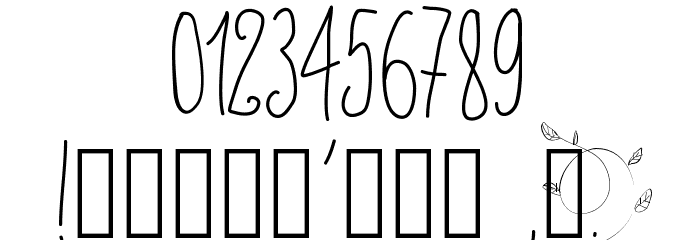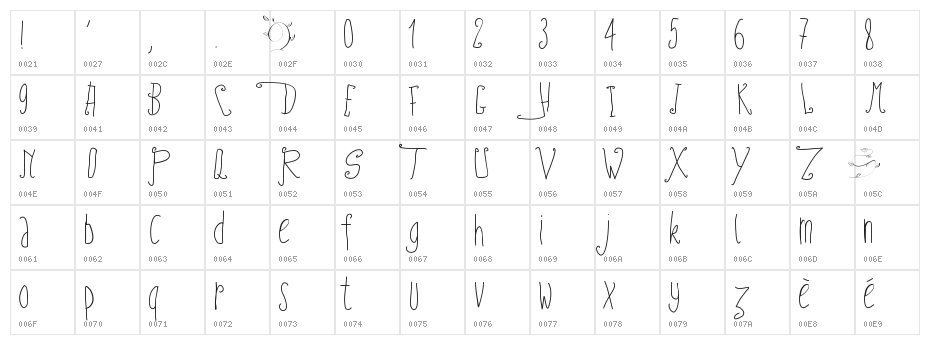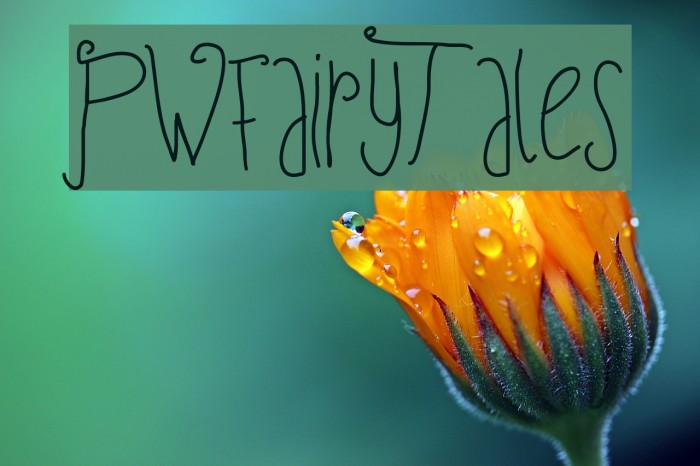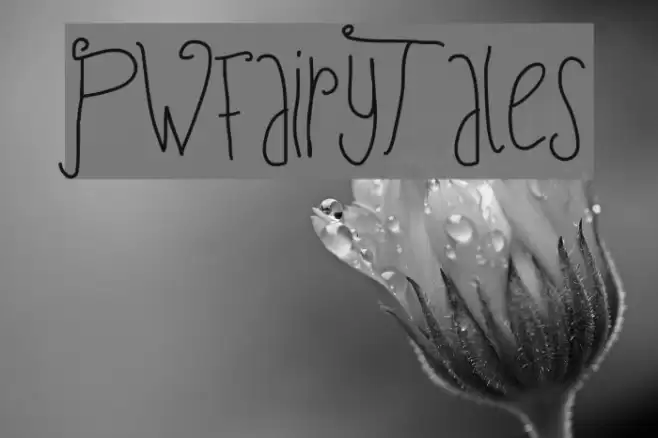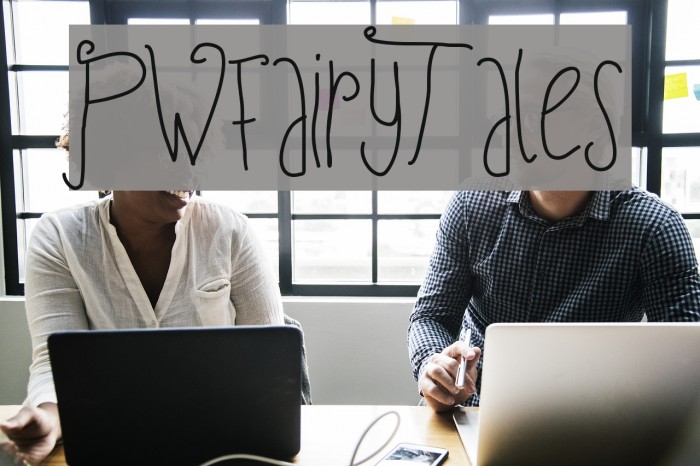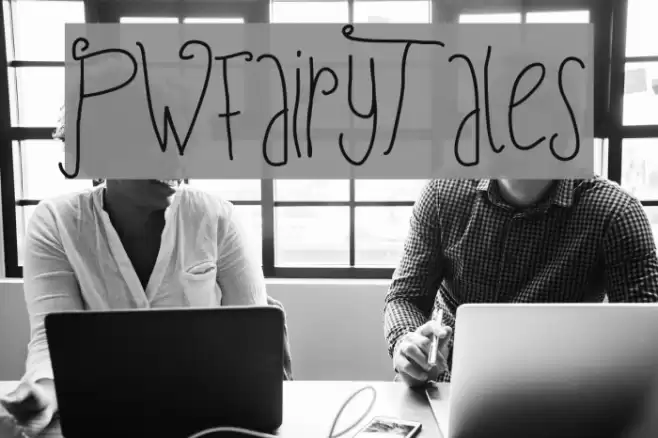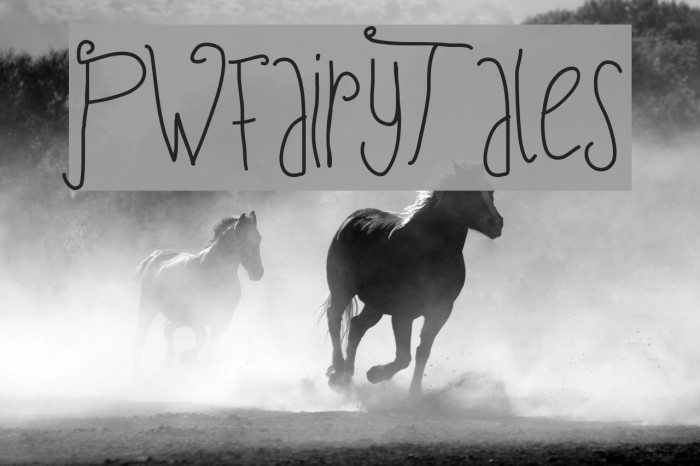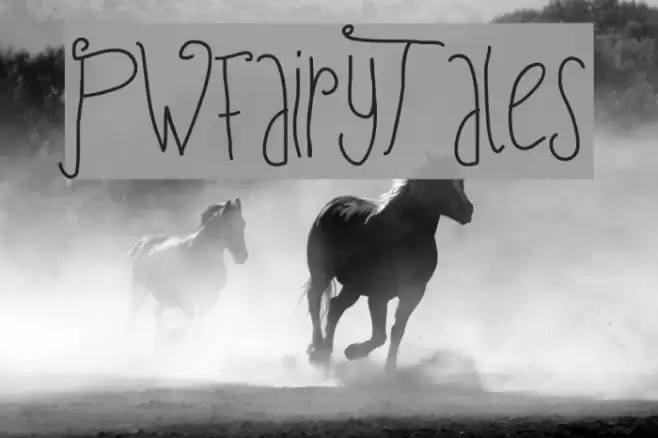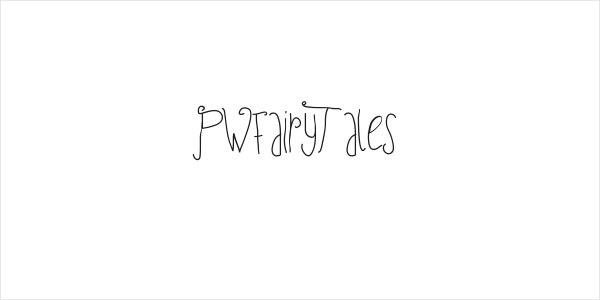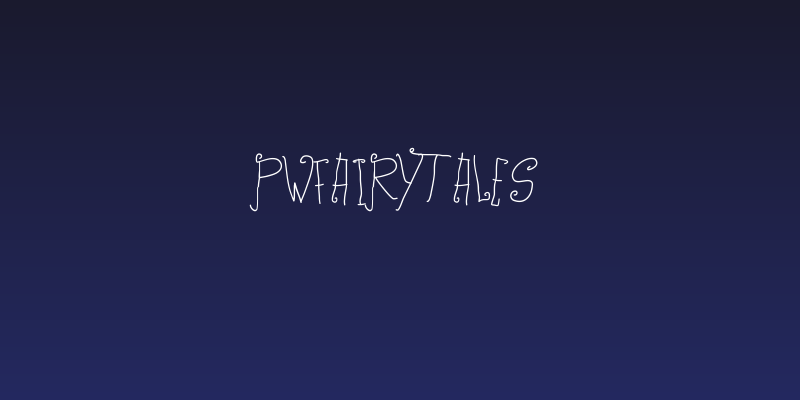
PWFairyTales Font
PWFairyTales Description
This whimsical and playful font features tall, slender characters with a hand-drawn aesthetic. The uppercase letters are particularly elongated, with quirky, uneven lines that give a sense of movement and spontaneity. The lowercase letters maintain a similar style, with some characters having unique loops and curls that add to the font's charm. Numbers are consistent with the overall style, featuring the same thin lines and playful curves. Special characters are creatively integrated, maintaining the font's whimsical nature. This font is perfect for projects that require a touch of fantasy or a fairy-tale theme.
| Overall Style | Whimsical, Playful |
| Proposed Projects | Ideal for children's books, fantasy-themed invitations, playful branding, and creative posters. |